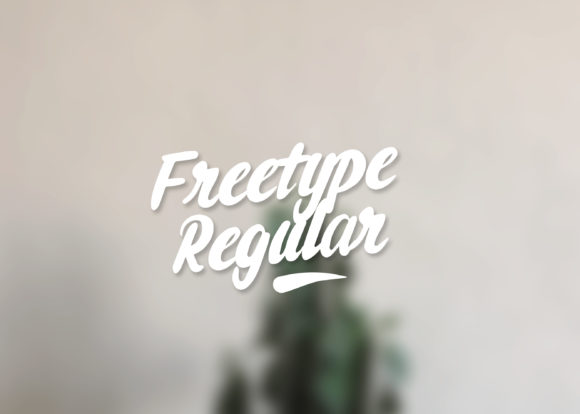
**Immerse Yourself in the Charm of Freetype Regular: A Handcrafted Script Font for Unforgettable Designs**
Freetype Regular, a captivating creation from Imoodev, is a script font that exudes personality and charm. Its bold strokes and playful curves lend a distinctive touch to your designs, making them stand out with undeniable flair.
**Unleash Your Creativity with Endless Possibilities**
With Freetype Regular, the possibilities are limitless. Create eye-catching logos that leave a lasting impression, design beautiful invitations that evoke heartfelt emotions, or craft social media posts that capture attention and ignite engagement. This versatile font is your perfect companion for a wide range of projects, adding a unique touch of elegance and sophistication to every creation.
**Embrace the Beauty of Imperfection**
Freetype Regular celebrates the beauty of handwritten imperfections, giving your designs an authentic and personal feel. Its carefully crafted characters exude a sense of warmth and approachability, inviting your audience to connect with your message on a deeper level.
**Elevate Your Designs with a Touch of Playfulness**
Inject a dose of fun into your designs with Freetype Regular's playful nature. Its whimsical curves and dynamic strokes add a touch of lightheartedness, perfect for capturing the attention of your audience and leaving them with a smile.
**Embark on a Journey of Visual Delight**
With Freetype Regular as your creative companion, you'll embark on a journey of visual delight. Its bold presence commands attention, while its intricate details reward closer inspection. Each character is a work of art, adding depth and texture to your designs, leaving your audience captivated and inspired.